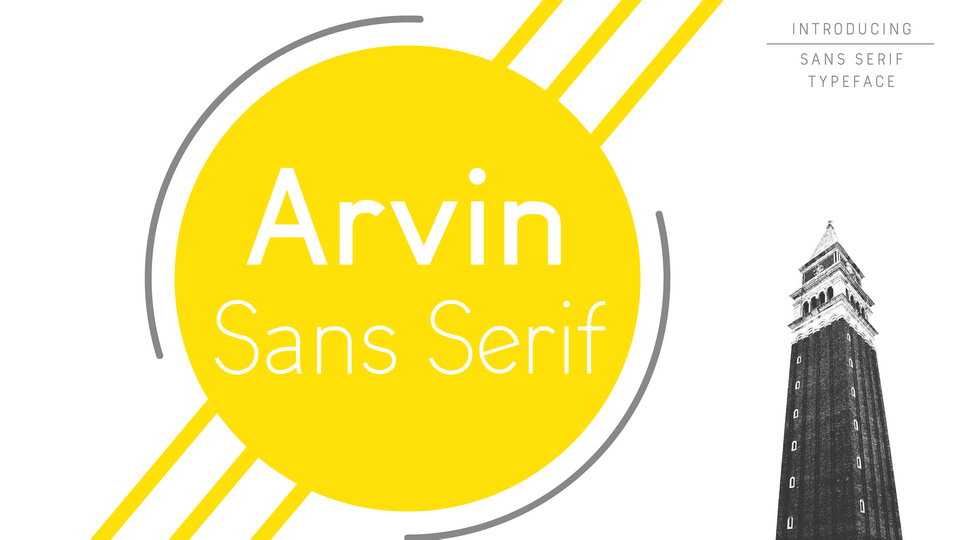
Download Arvin typeface, a basic sans serif font family that has a beautiful moral, meaning impartiality. Not separate, not fixate on, treat everything impartially, keep the mind optimistically, and view broadly.
Designer: Chen Yining